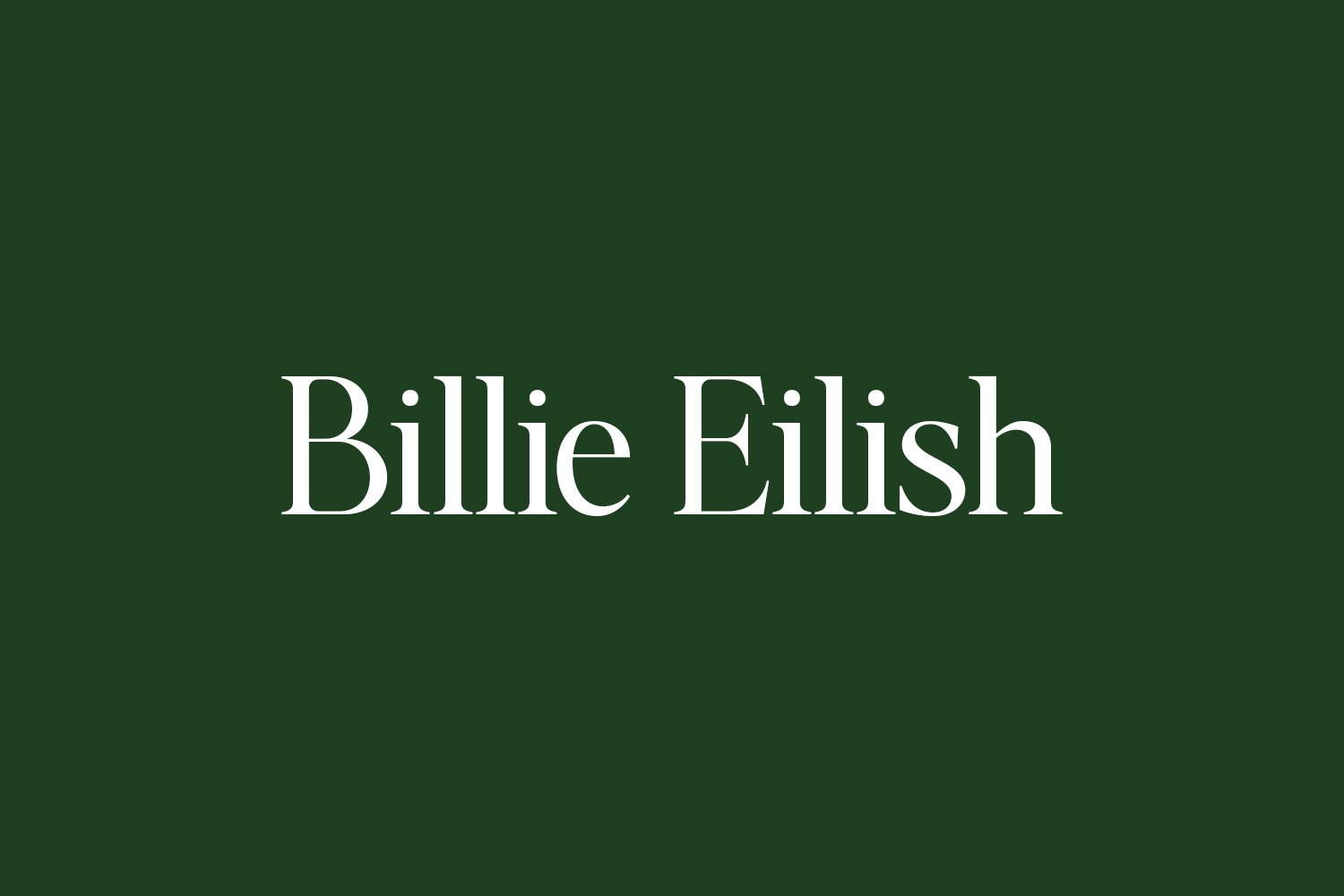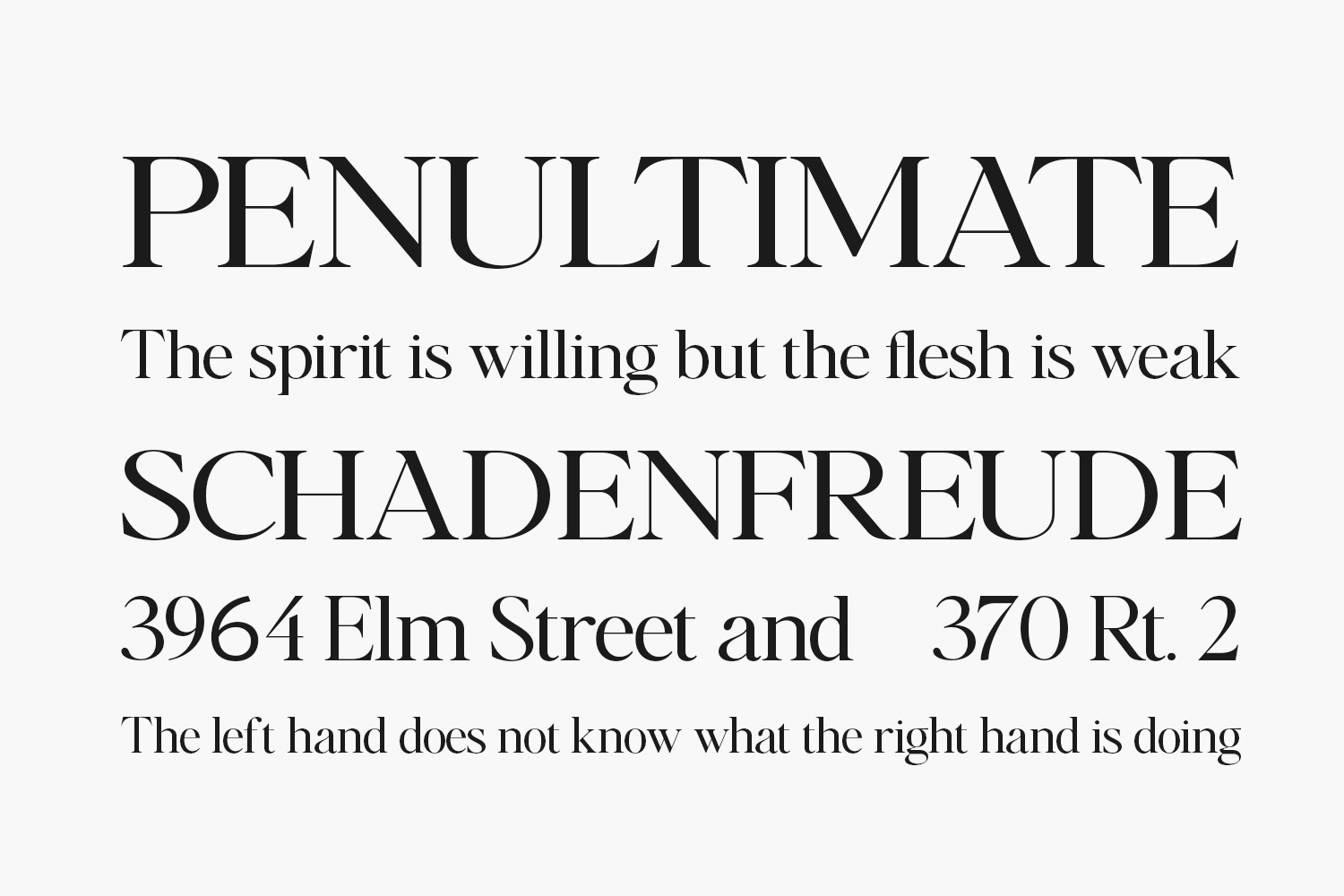
Introducing Billie Eilish Free Font, a contemporary, elegant, and refined serif typeface. This font is exceptionally well-suited for headings, logos, branding, magazines, product packaging, and invitations. With its clean lines and smooth curves, Billie Eilish adds a touch of sophistication to any project, elevating the overall class and aesthetic appeal. Download the font for free if you need it for personal use or purchase the full version for commercial use.
Designed by Zane Studio